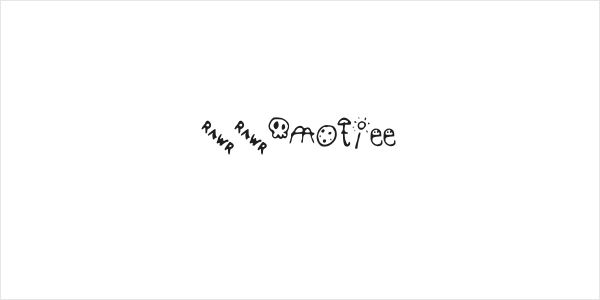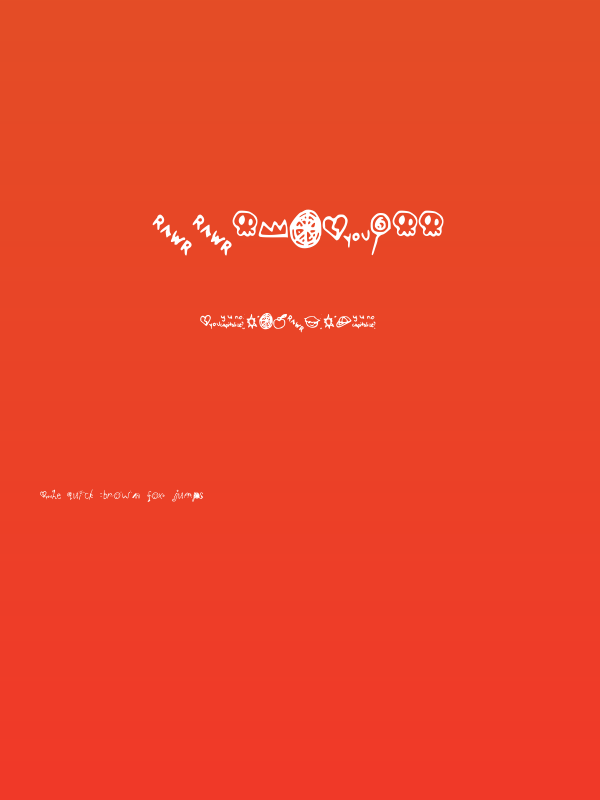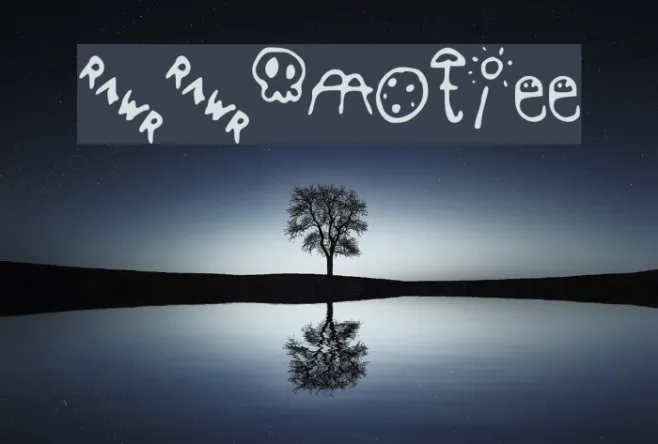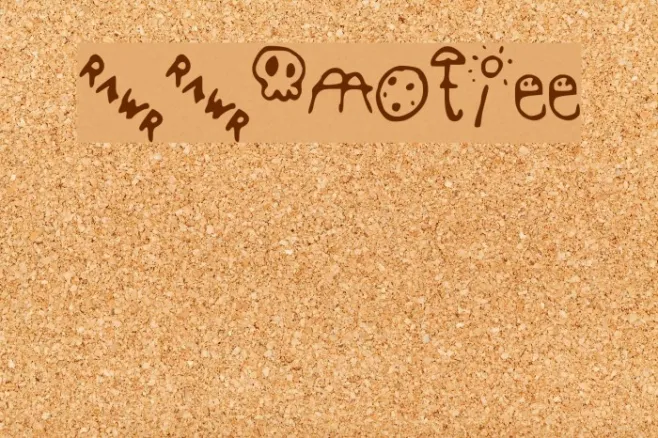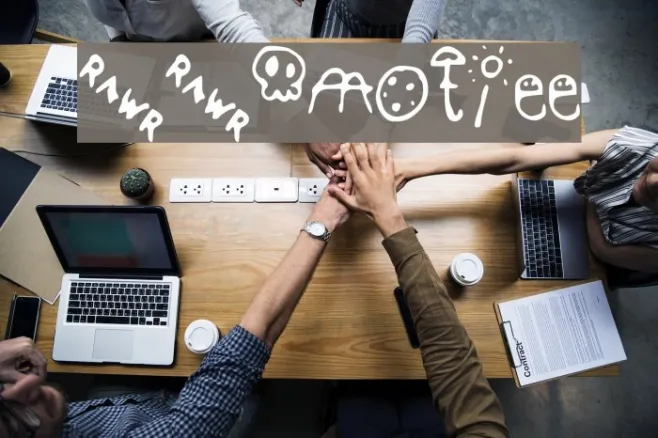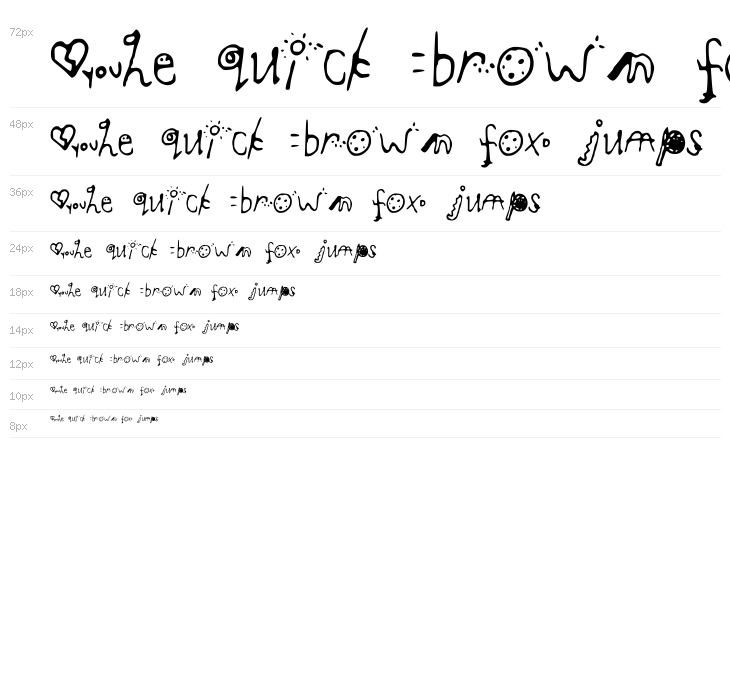
RREmotiee Font
RREmotiee Description
This font is a playful and whimsical design, featuring irregular and quirky characters that resemble doodles or hand-drawn sketches. Each letter and number is unique, with varying line thickness and unexpected embellishments such as dots, stars, and swirls. The font includes a full set of lowercase letters, numbers, and a variety of special characters, each with its own distinct personality. The overall appearance is casual and artistic, making it suitable for creative and informal projects.
| Overall Style | Whimsical, Artistic |
| Use Case | Logos, Posters, Creative projects |